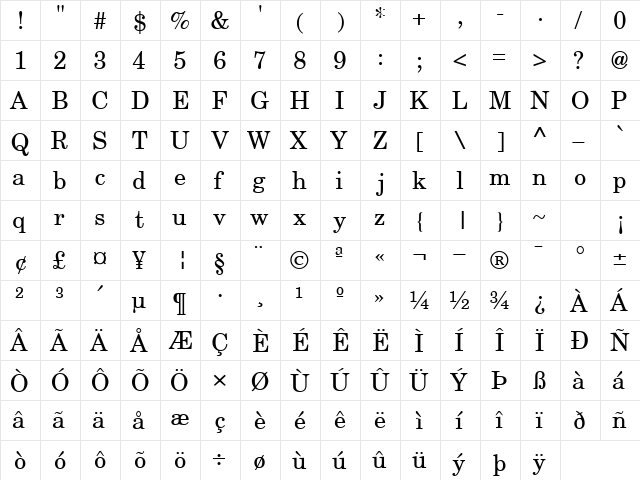
CenturySchoolbookRepriseSSK Regular
Design Context for CenturySchoolbookRepriseSSK Typeface
CenturySchoolbookRepriseSSK offers clean, dependable letterforms without strong stylistic allegiance, making it a practical choice for designers who need flexibility.